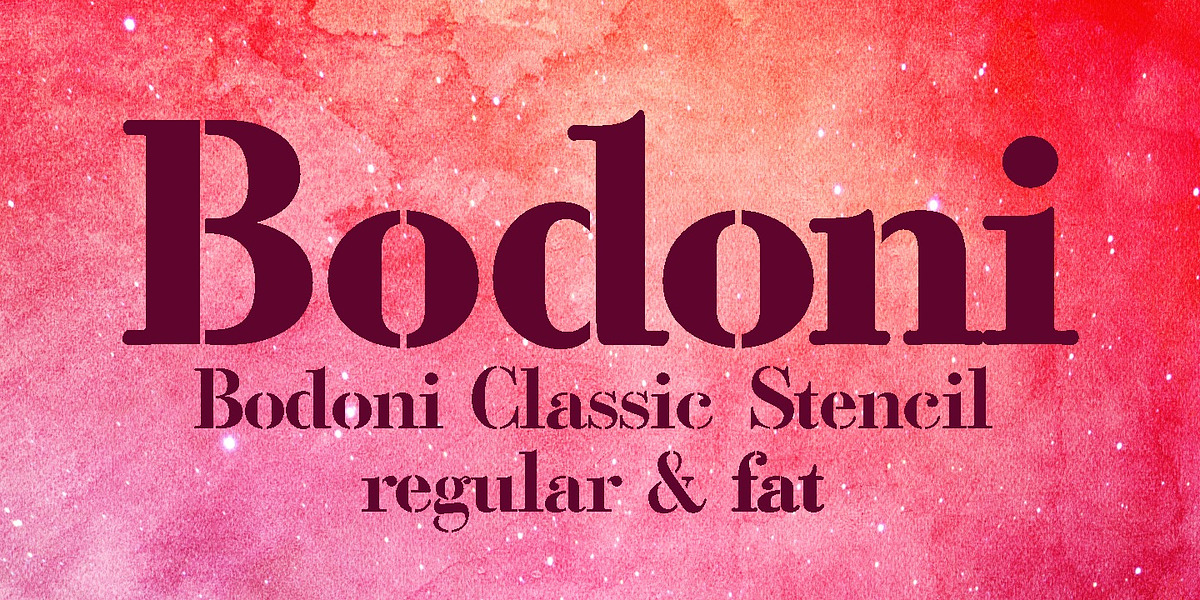
Bodoni Classic Stencil
Bodoni Classic Stencil is a stencil-inspired typeface based on the classic Bodoni serif design. It features ball terminals and sharp edges reminiscent of traditional stencil lettering.